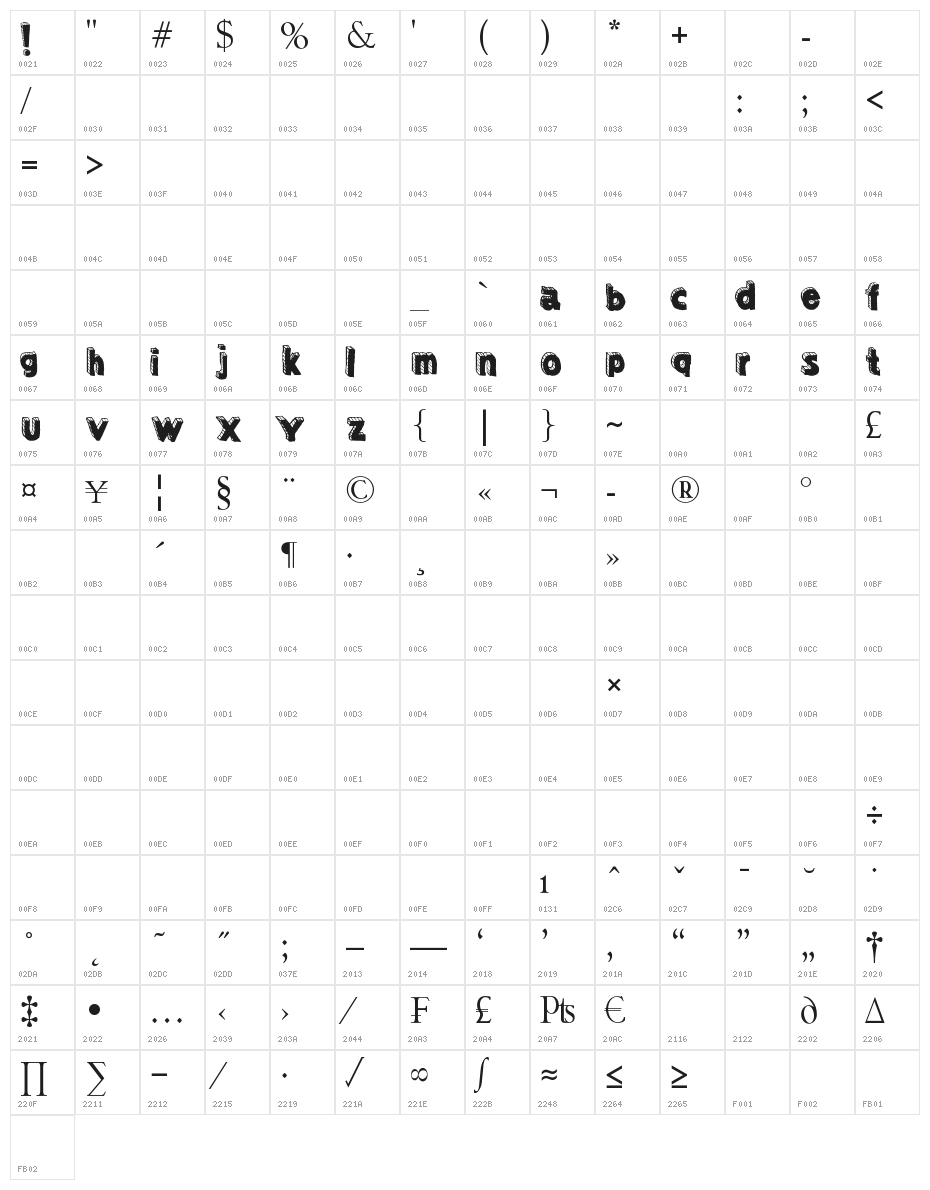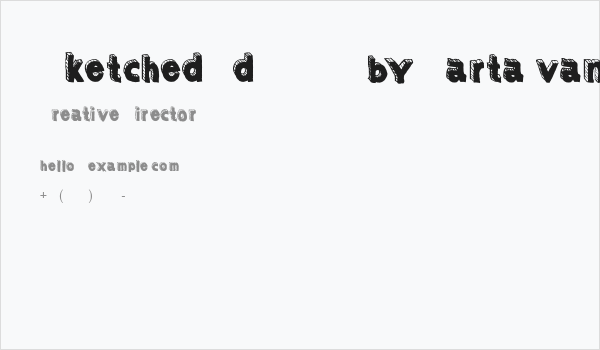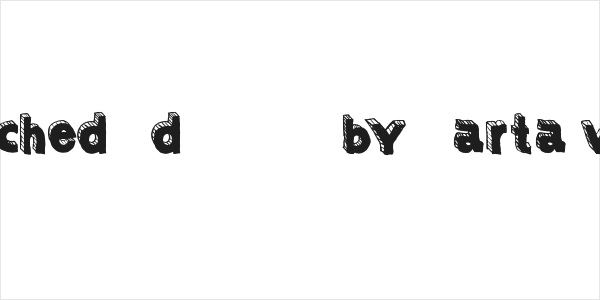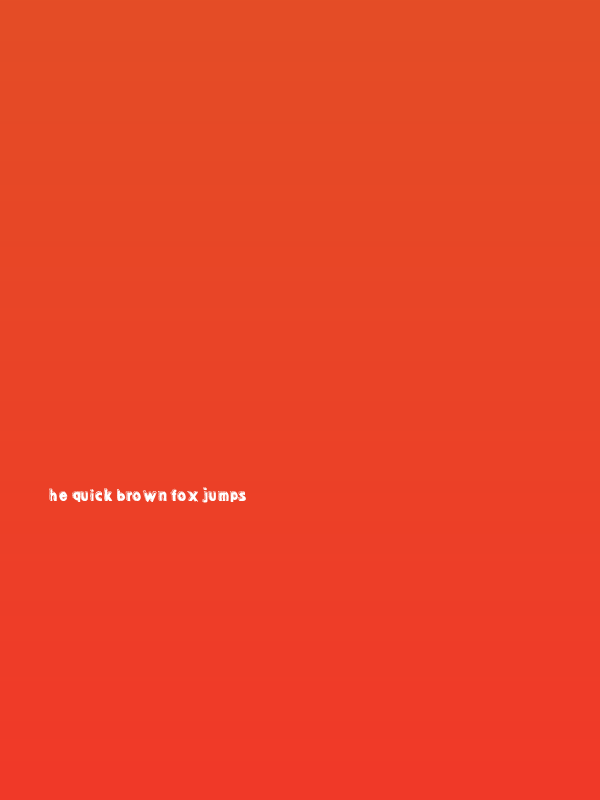
Sketched 3d DEMO by Marta van E Font
Sketched 3d DEMO by Marta van E Description
This font features a playful and dynamic 3D sketch style, giving each character a hand-drawn appearance with a shadow effect that adds depth. The letters are bold and slightly rounded, with a consistent thickness throughout. The sketch lines within each character create a textured look, enhancing the font's artistic and informal vibe. It is ideal for projects that require a creative and fun touch, such as children's books, comic strips, or playful branding. The font maintains legibility while offering a unique visual interest, making it suitable for headlines and short text.
| Proposed Projects | Ideal for children's books, comic strips, playful branding, and creative headlines. |